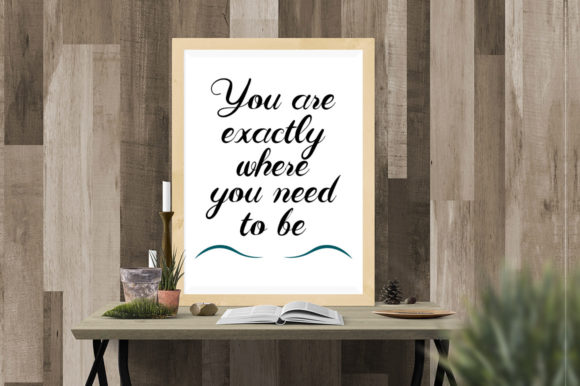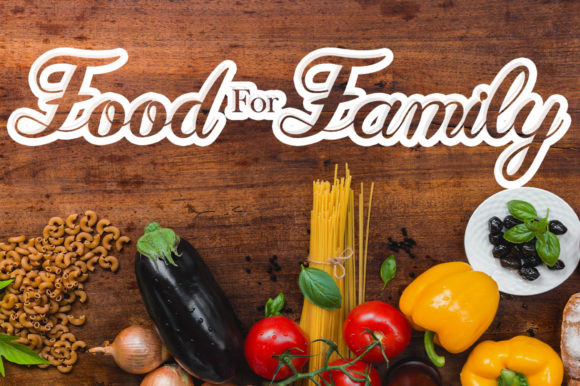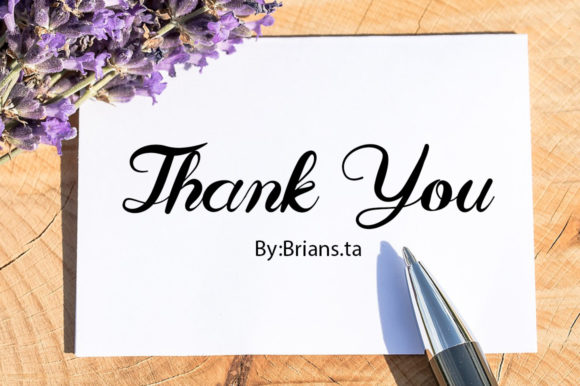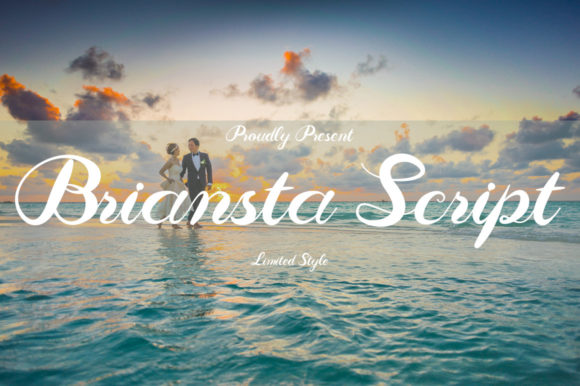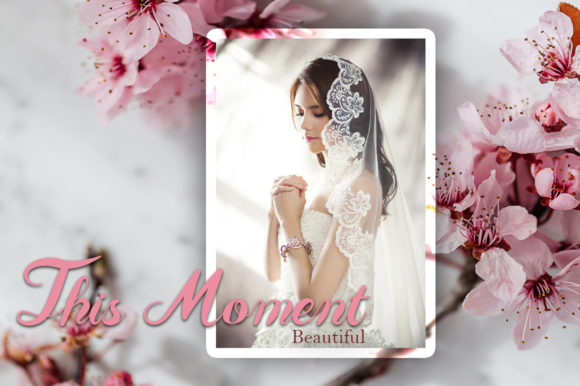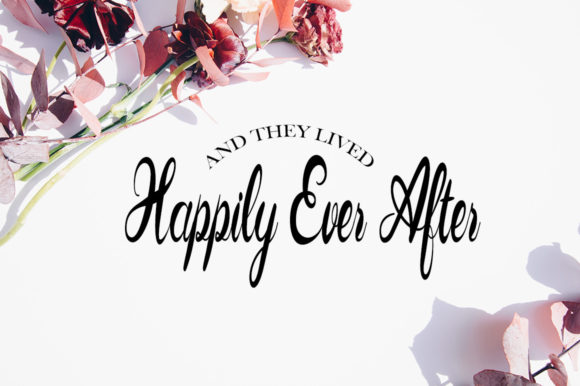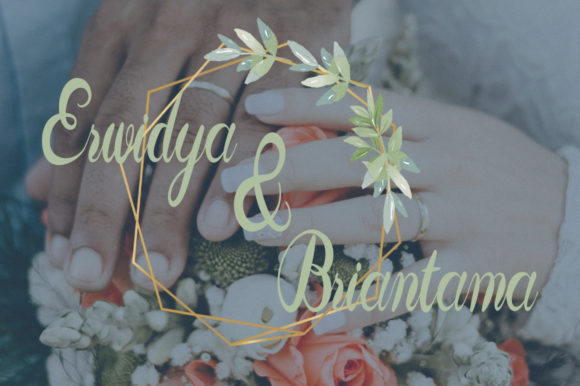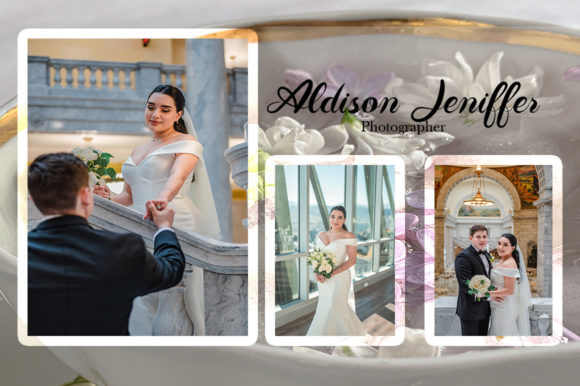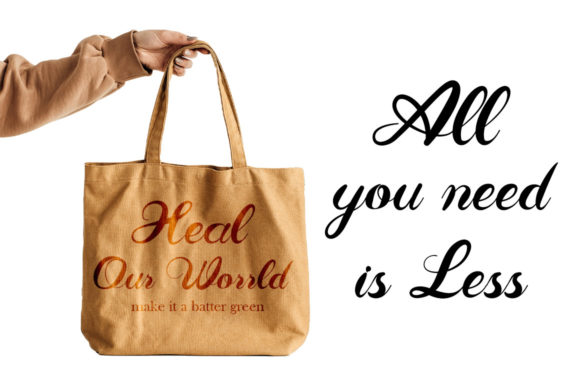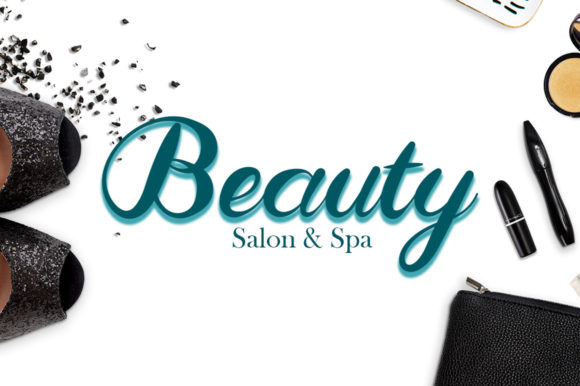
Briansta Font
About Briansta Font
Briansta is a romantic and sweet handwritten font. It will add a spark of luxury to any design or project you want to create! This font is suitable for invitation cards, wedding fonts, promotional fonts, and other projects that require unique typography. The characters and kerning in this font are professionally crafted so they are suitable for use in all aspects.